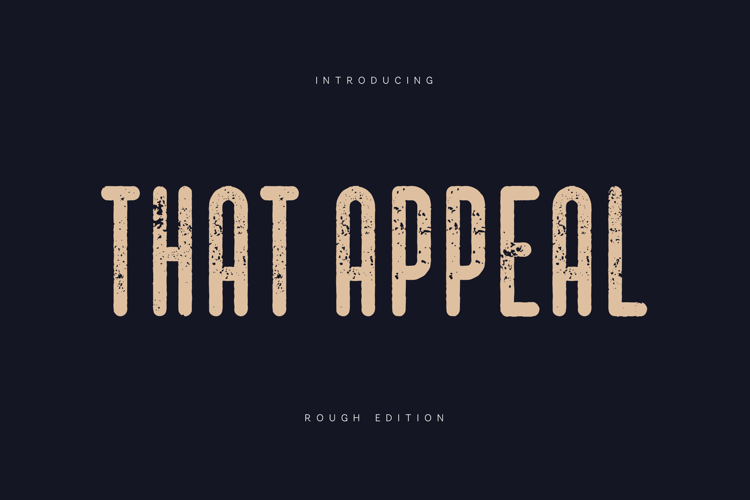
That Appeal Rough Vintage Condensed Display Font
Give your typography an authentic vintage character with That Appeal Rough, a distressed condensed display font designed to create bold, eye-catching headlines with a handcrafted worn texture. Perfect for brands looking to combine modern structure with retro personality, this typeface delivers a timeless industrial aesthetic that works across both print and digital projects.
The rough texture adds natural imperfections without sacrificing legibility, making it ideal for logos, branding, posters, packaging, beer labels, coffee shops, restaurants, outdoor brands, merchandise, editorial layouts, album artwork, social media graphics, signage, and advertising. Its tall condensed proportions allow you to create powerful compositions while maximizing space.
Featuring multilingual language support and a complete set of uppercase, lowercase, numerals, and punctuation, That Appeal Rough is a versatile display font for designers who want bold typography with authentic vintage appeal.
- Rough Distressed Texture
- Condensed Display Typeface
- Vintage Industrial Style
- Perfect for Logos, Branding, Posters, Packaging & Editorial
Bring handcrafted character and timeless vintage style to your next creative project with That Appeal Rough.